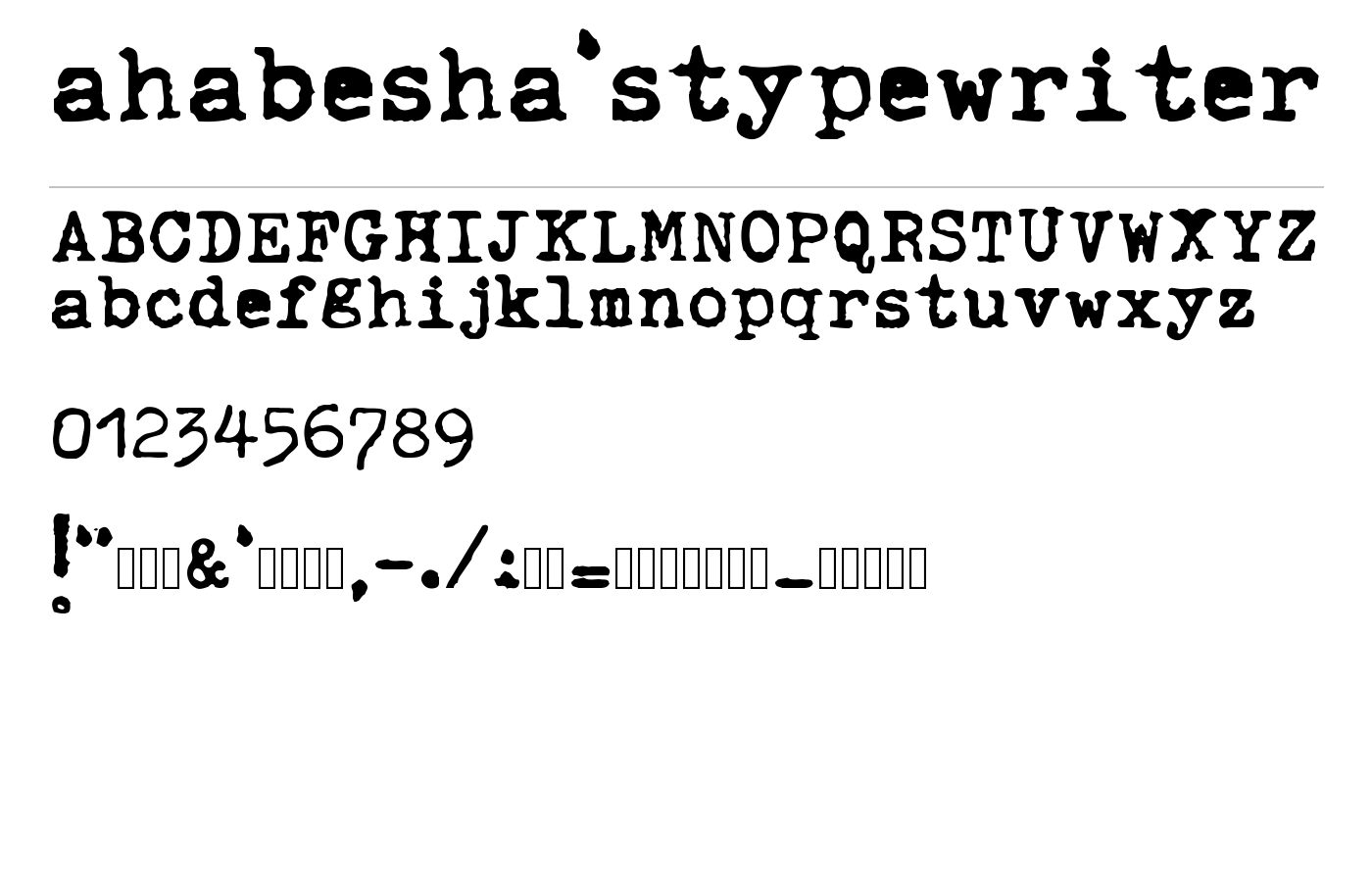
Ahabesha'stypewriter is a textured, monospace serif font that captures the authentic, vintage feel of classic typewritten text. Its uneven edges and irregular stroke weights give it a worn, nostalgic character, perfect for designs seeking an old-fashioned, handcrafted vibe. This font works well for editorial projects, posters, and branding that aim to evoke a sense of history and personality.
About ahabesha'stypewriter Font